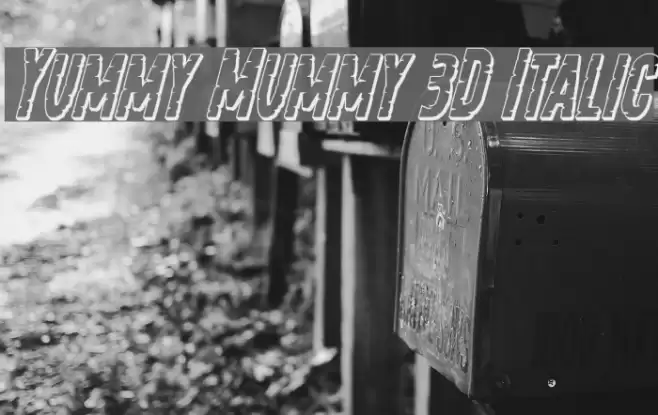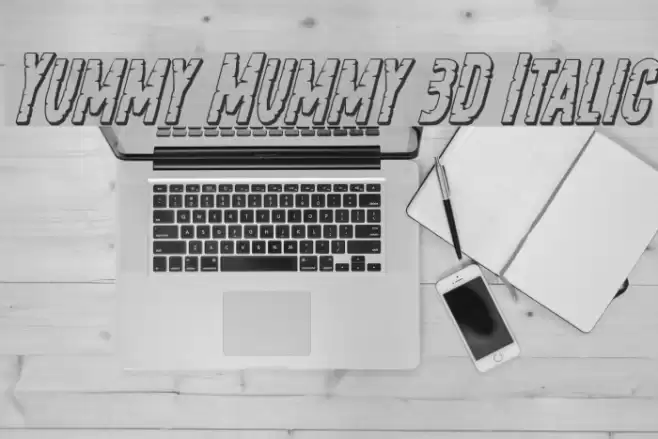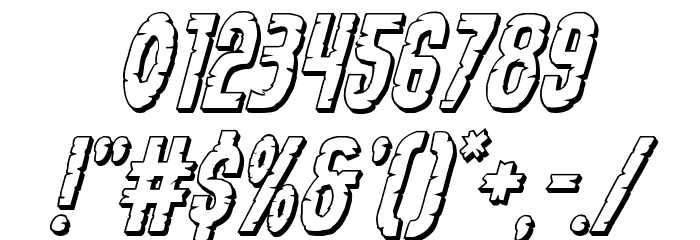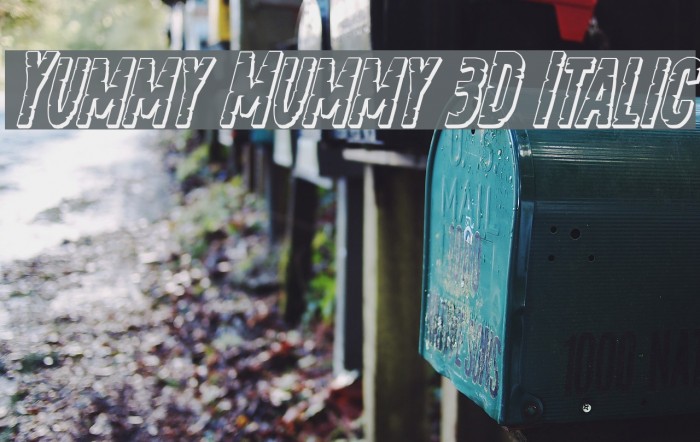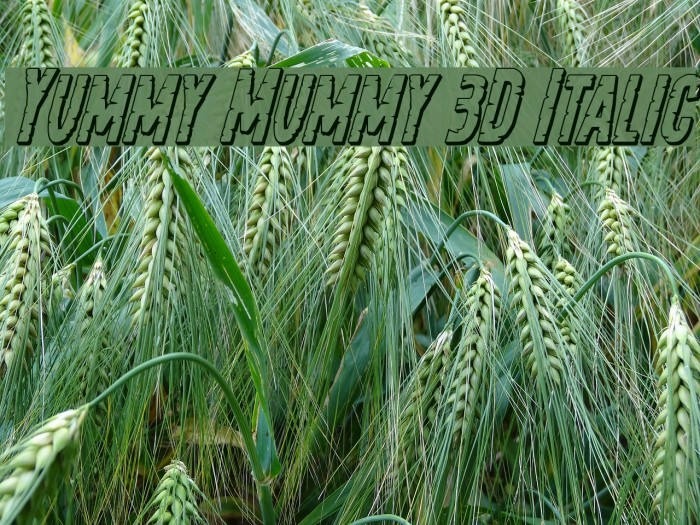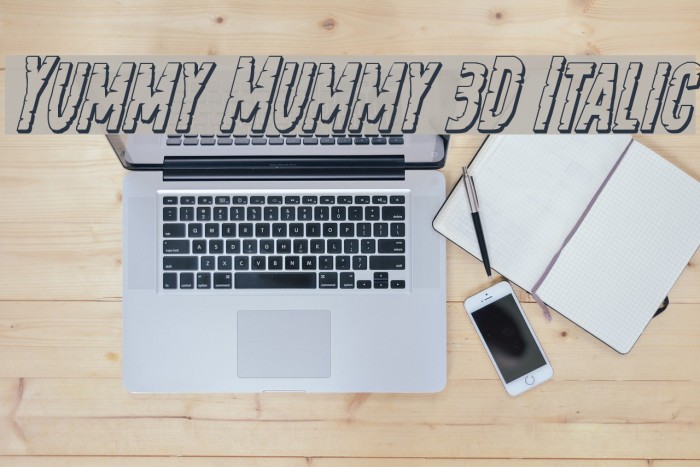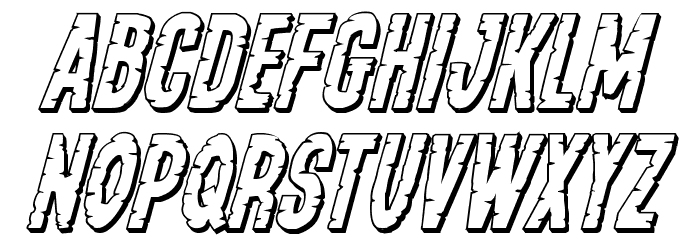
Yummy Mummy 3D Italic Font
Yummy Mummy 3D Italic Description
This font features a bold, three-dimensional appearance with a playful and dynamic style. Each character is outlined with a shadow effect, giving it a sense of depth and movement. The italicized slant adds to its energetic and lively feel, making it stand out in any design. The uppercase and lowercase letters maintain a consistent style, with numbers and special characters following the same design principles. The font's unique structure makes it ideal for eye-catching headlines and creative projects.
A bold, 3D italic font with a playful and dynamic style from Uncategorized fonts.
- Proposed Projects: Perfect for posters, comic book titles, children's book covers, and playful branding.